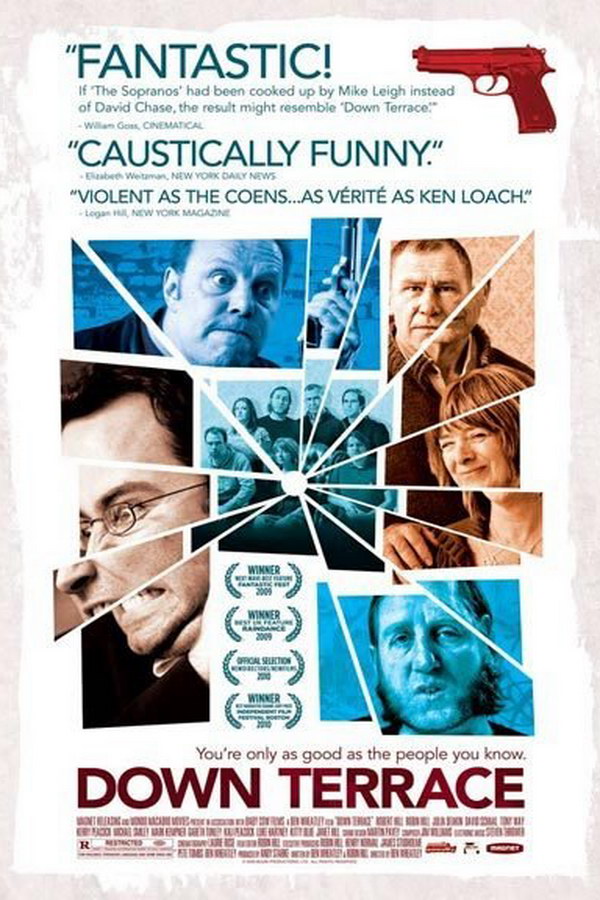
Down Terrace Font
CrimeDown Terrace is a 2009 British crime comedy film written and directed by Ben Wheatley. The film follows a crime family living in a suburban terraced house and is shot in a naturalistic, vérité style.
The movie title ''Down Terrace'' features a geometric sans serif font called Avenir Black, designed by Adrian Frutiger in 1988. You can view and get more details about the font here.